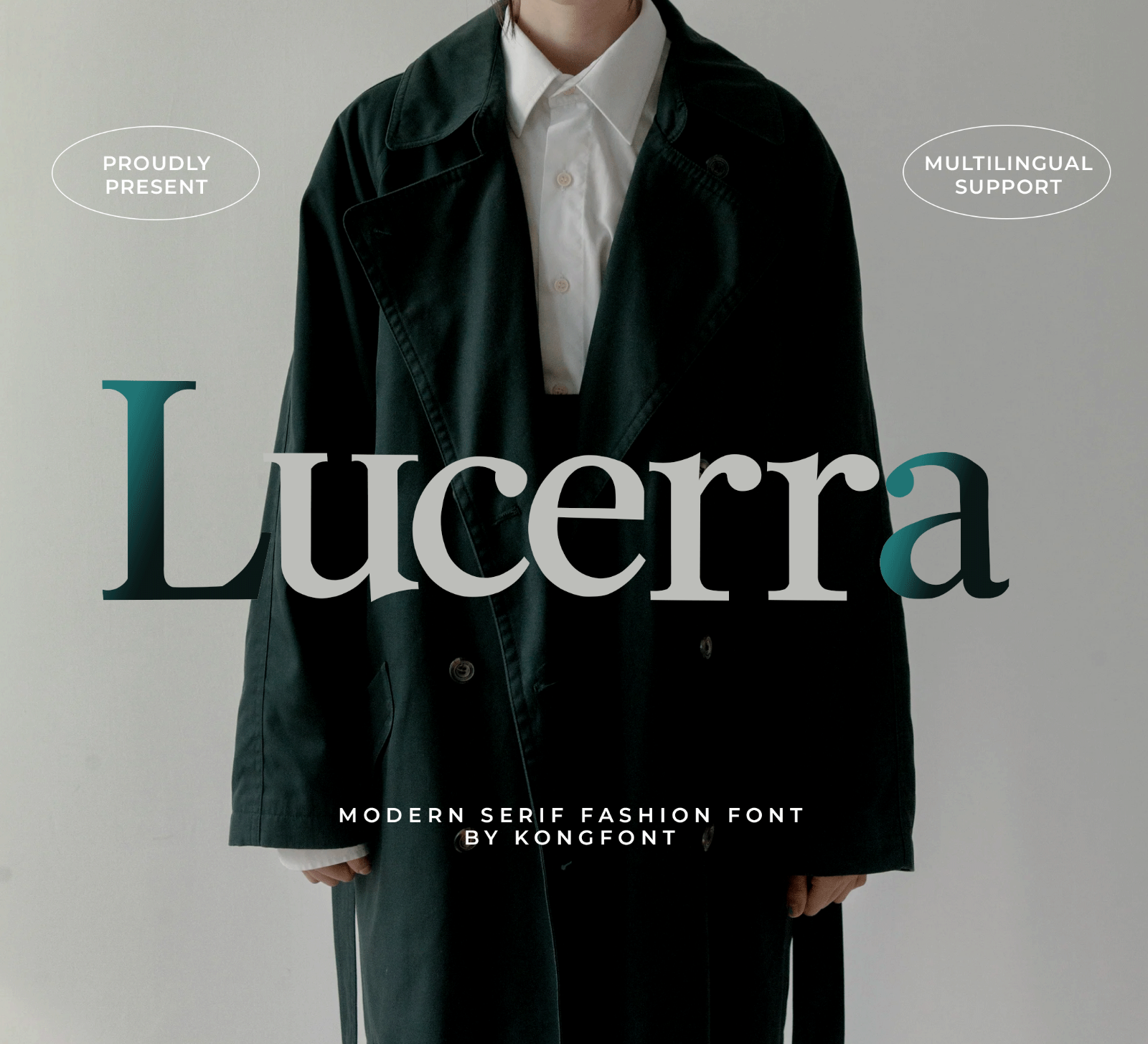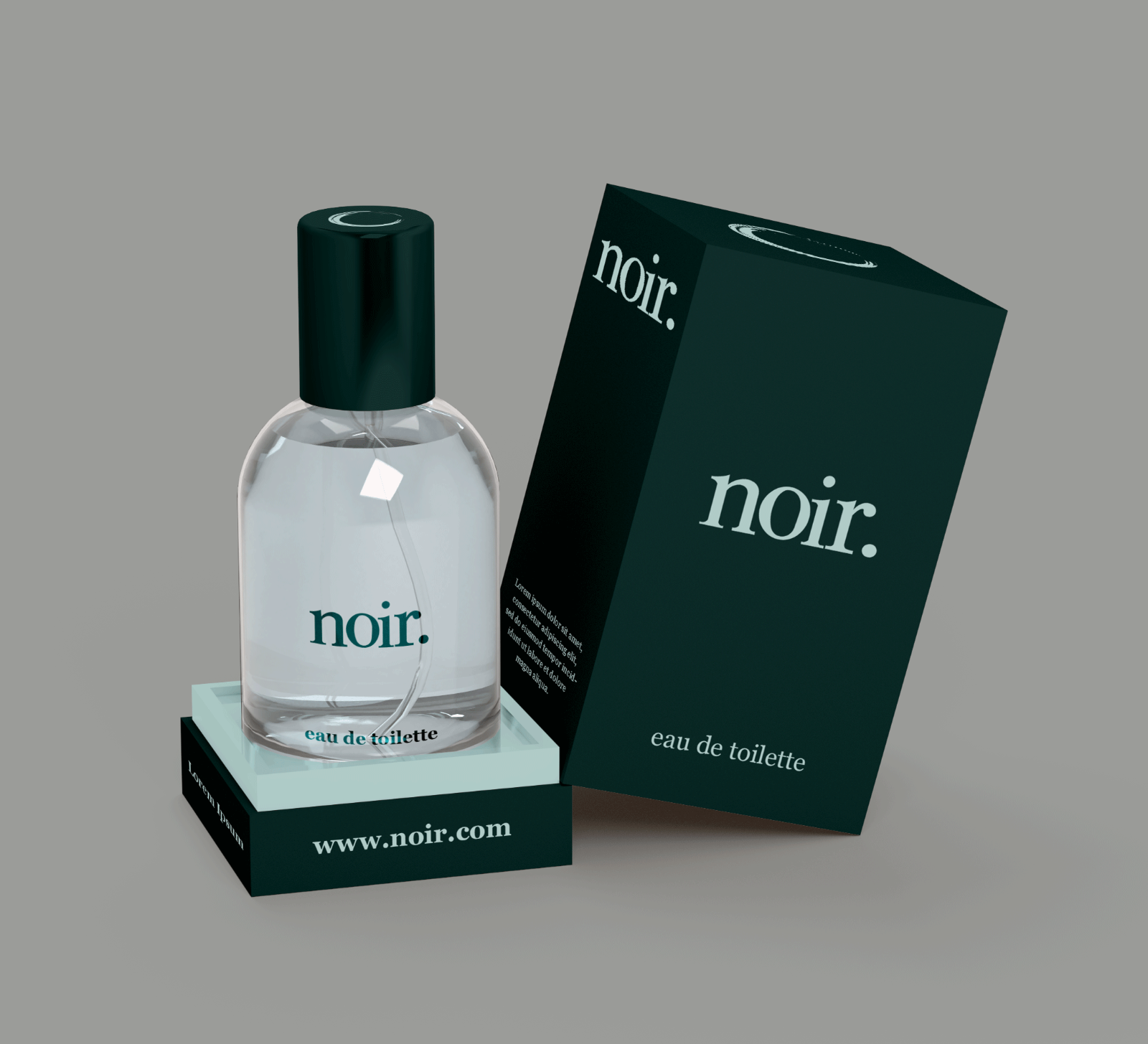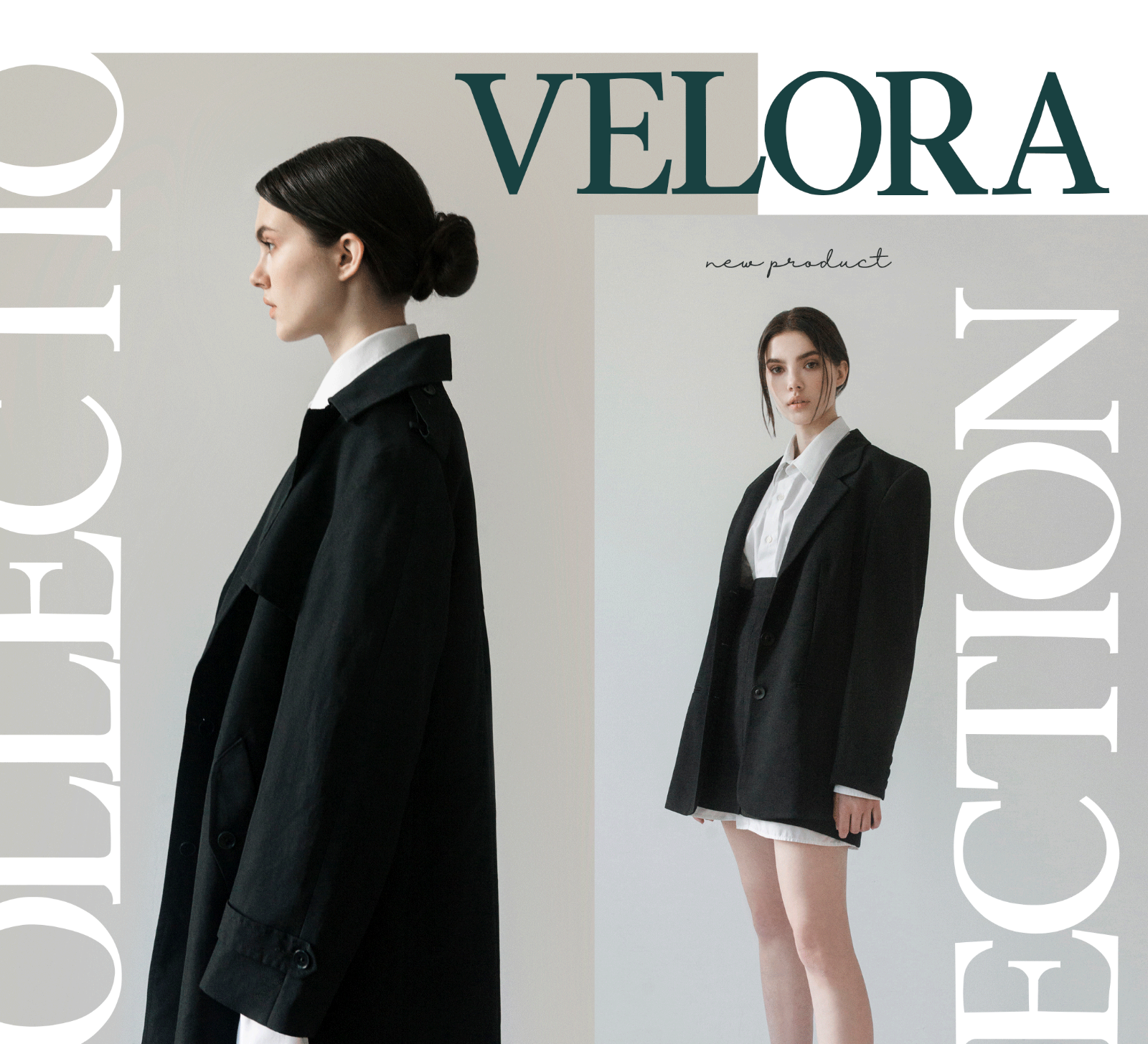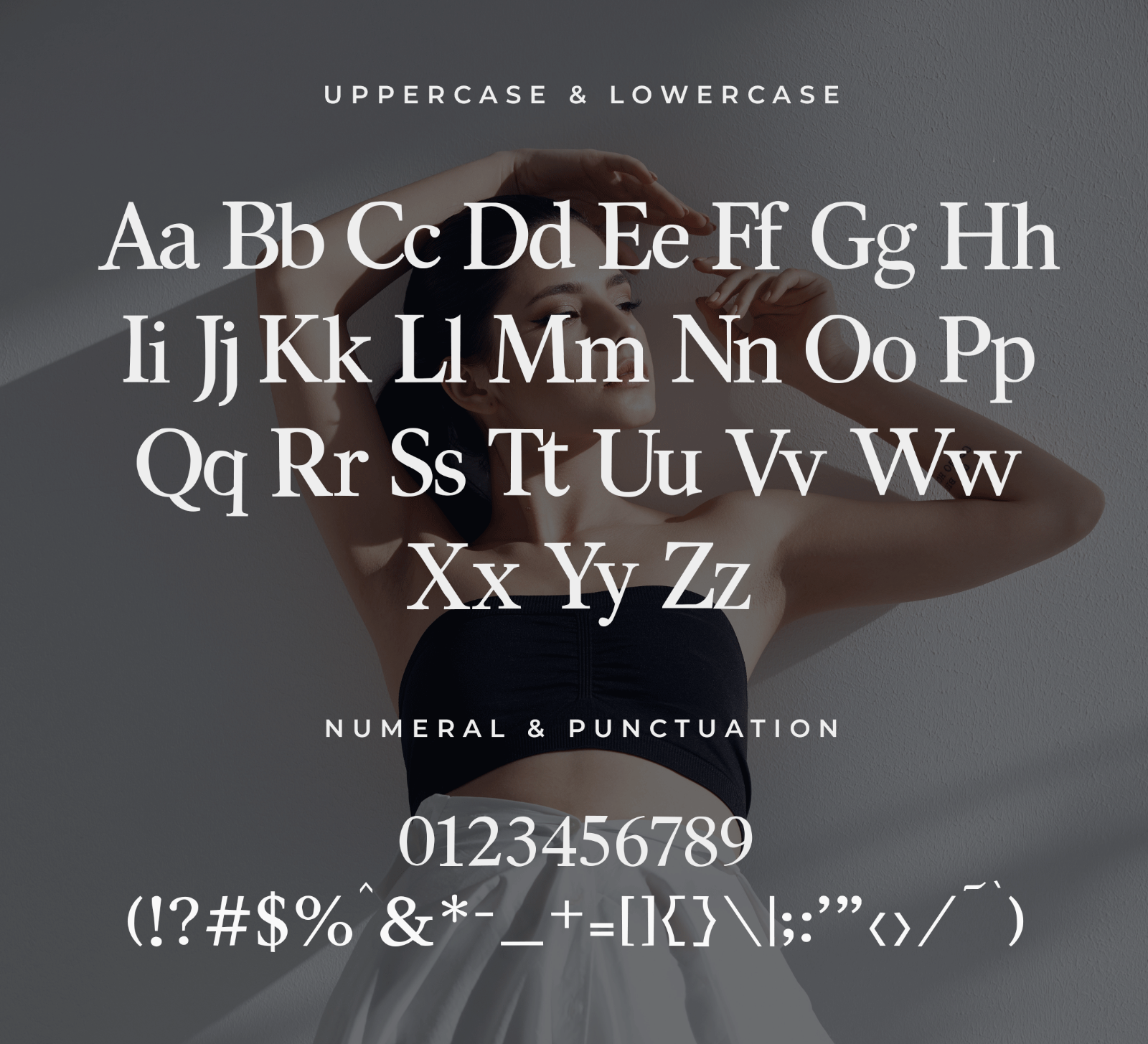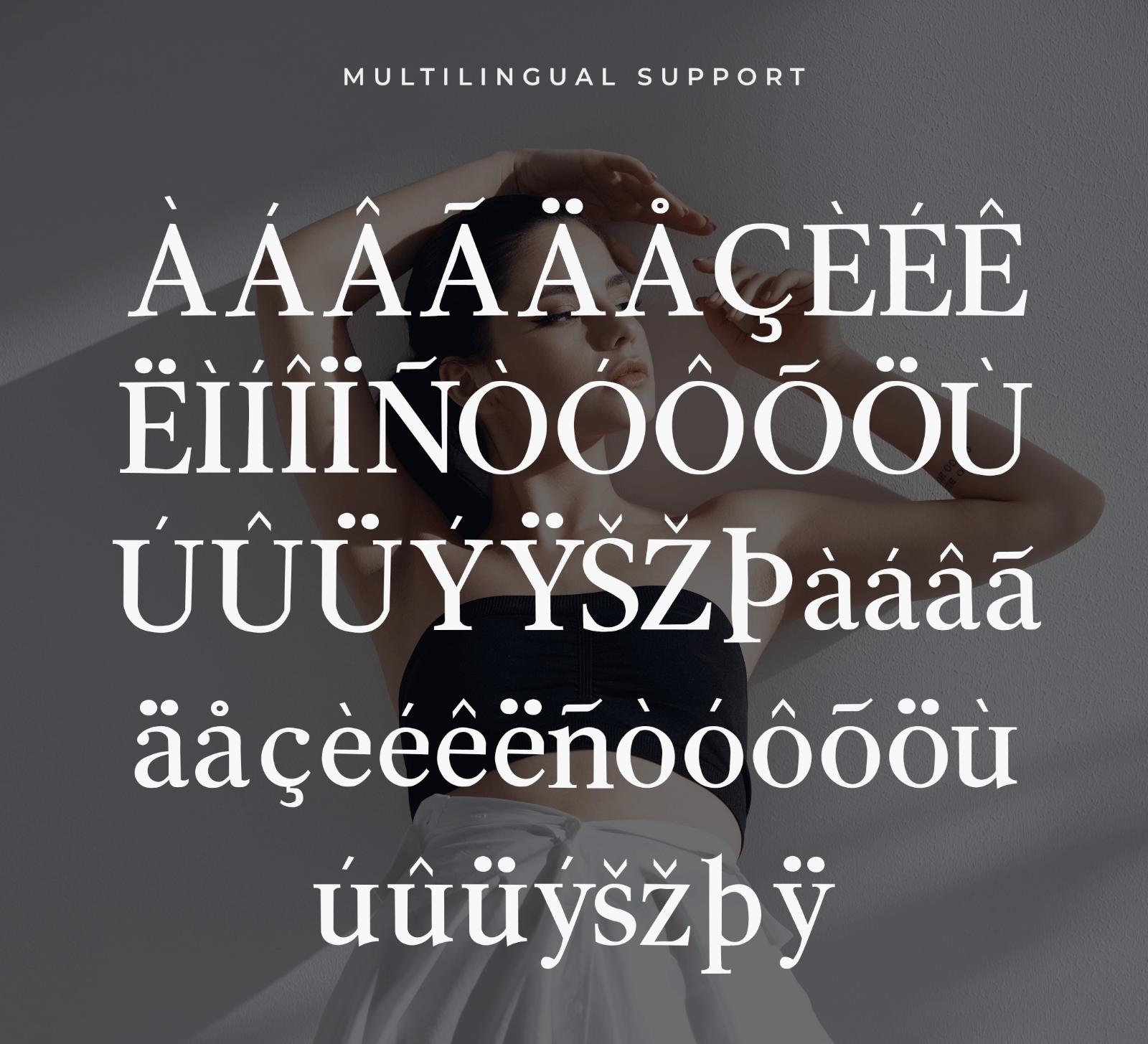
Lucerra is a modern luxury serif font with graceful curves, elegant contrast, and refined letterforms. Its sophisticated style is perfect for creating premium and stylish designs with a timeless look.
• Luxury branding
• Fashion campaigns
• Logos
• Magazine headlines
• Cosmetic branding
• Premium packaging
• Wedding stationery
• Editorial layouts
• Beauty products
• Social media designs